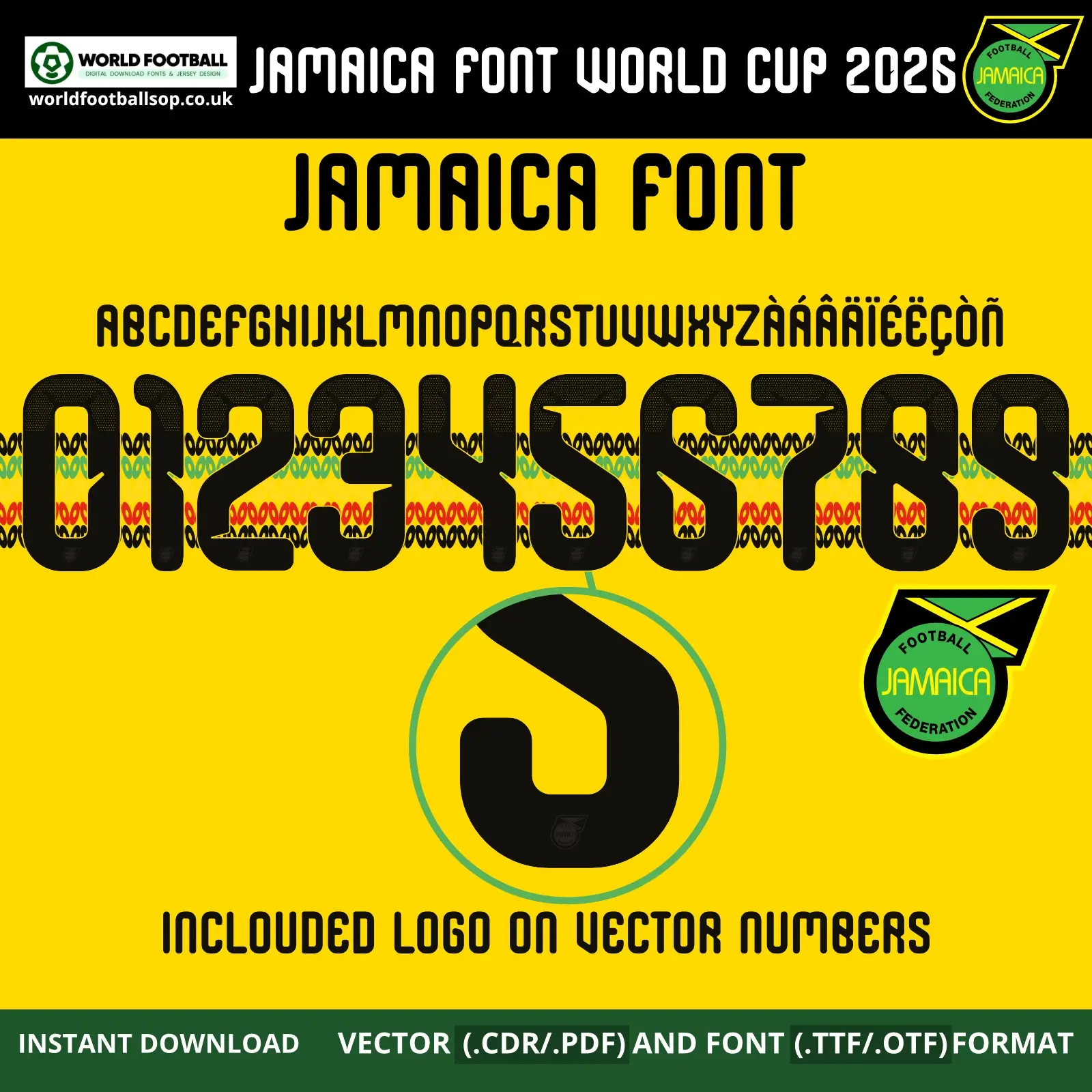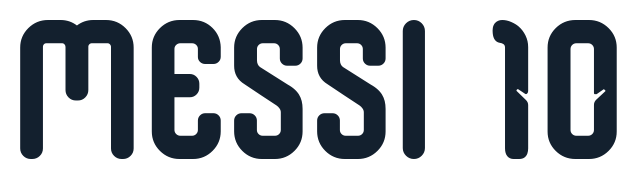
Jamaica Font World Cup 2026 - Reggae Boyz Bob Marley Home Style
The Jamaica Font World Cup 2026 Home Kit pack captures the unique lettering of Jamaica’s Bob Marley‑inspired 2026 home shirt. The font features tall, rounded numbers with soft corners and subtle cuts, filled with perforated ventilation dots at the top for a modern performance look. Set in rich black against bright yellow with green, red and gold crochet‑style bands, the characters echo the rhythm and colour of reggae culture and Jamaica’s new kit identity.
Designed for fans, kit printers and designers, this Jamaica World Cup 2026 font lets you create authentic‑looking Reggae Boyz namesets without needing official artwork. The vector numbers include a small Jamaica Football Federation‑style crest at the base, while the TTF/OTF fonts are simplified for smooth installation and everyday use. Use it to set “BURRELL 17”, custom player names, flags, banners, match‑day posts or any design that needs a bold Jamaican flair.
Full uppercase A-Z alphabet plus extended accents (Á Â Ä Å É È Ç Õ Ñ, etc.) for international player names.
Numbers 0-9 in the Jamaica 2026 home kit style, ready for back, front or shorts printing.
Bob Marley inspiration: Matches the 2026 Jamaica home kit that uses bold gold fabric with wavy green, yellow and red crochet‑style bands referencing Marley’s 1970s knitwear and record culture.
Adidas 2026 home font DNA: Follows the rounded, subtly cut Adidas 2026 home kit font adapted with Jamaican details, giving a distinctive yet tournament‑consistent look.
Reggae Boyz identity: Pairs perfectly with the bright Bold Gold shirt and reggae colour palette, ideal for designs celebrating Jamaica’s “Reggae Boyz” nickname.